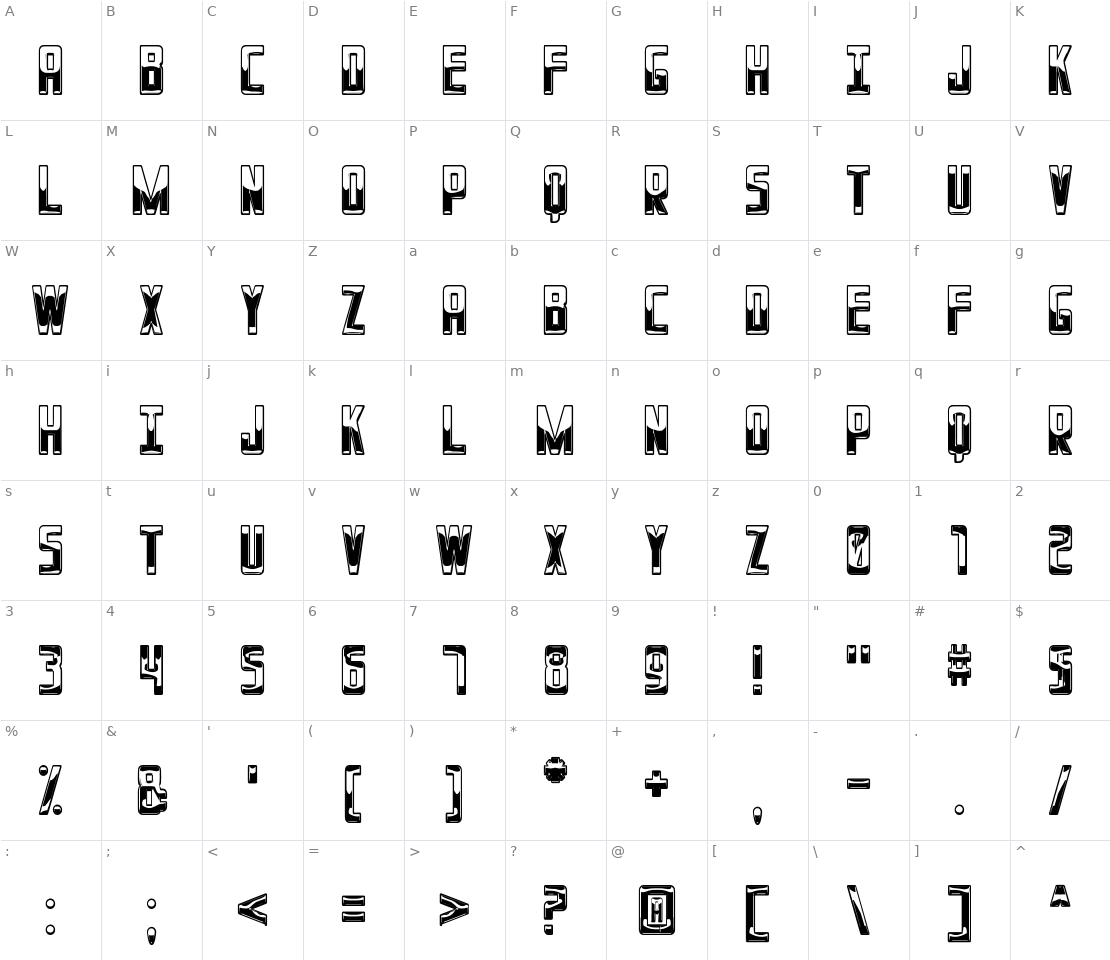
Panda Power St
Panda Power St is a heavy, blocky uppercase display face from Southype with built-in 3D shadow effects that give each letter a chunky, extruded look. The bold proportions and dimensional styling make it feel like poster type you'd see on a toy box or a kids' event flyer. Best kept to headlines and short runs of text where the shadow effect has room to read clearly.